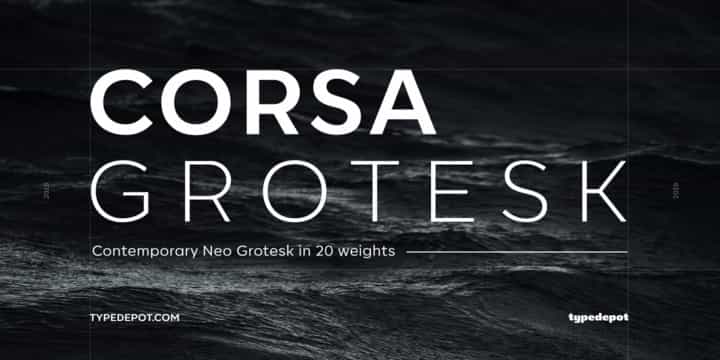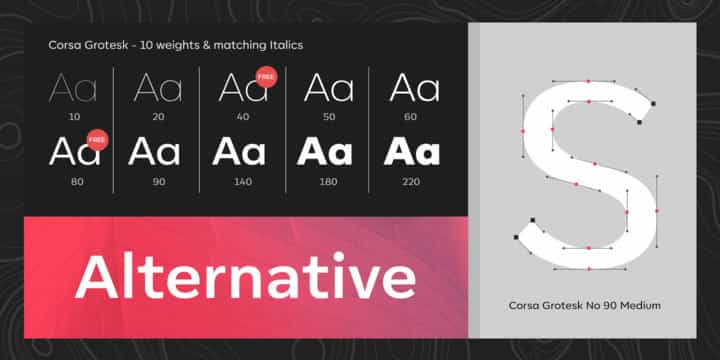
Discover Corsa Grotesk Font Family, part of the Sans Serif collection—a versatile and unique font perfect for adding a personal touch to your projects. Download it for free and enjoy crafting designs with style, from invitations to social media posts. This font is available exclusively for personal use, giving you the freedom to create without limits. Unlock your creativity with Corsa Grotesk Font Family today!
Corsa Grotesk Font Family is now accessible to everyone, thanks to Typedepot who has designed it. In their expanding and unique library, we are glad to have this font family as a new member. This design is the modernized version of “Linear Sans” and “Grotesque” designs that were based on the classic Avenir font.